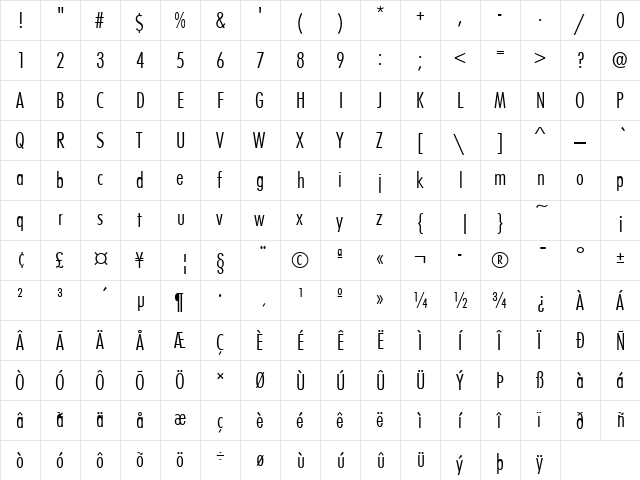
FunctionCondLH Regular
Design Context for FunctionCondLH Typeface
FunctionCondLH has an approachable, lighthearted character — its loose, expressive forms are well-suited to children's content, casual branding, and fun-first design.
Great for children's books, toy packaging, family event branding, and casual consumer-facing design.
Font Pairing: Pairs well with a rounded or humanist sans for body copy, maintaining the friendly tone without relying on FunctionCondLH to carry extended reading.
Pro Tip: Avoid using FunctionCondLH for long passages of text — it works best for headlines, labels, and short calls to action.